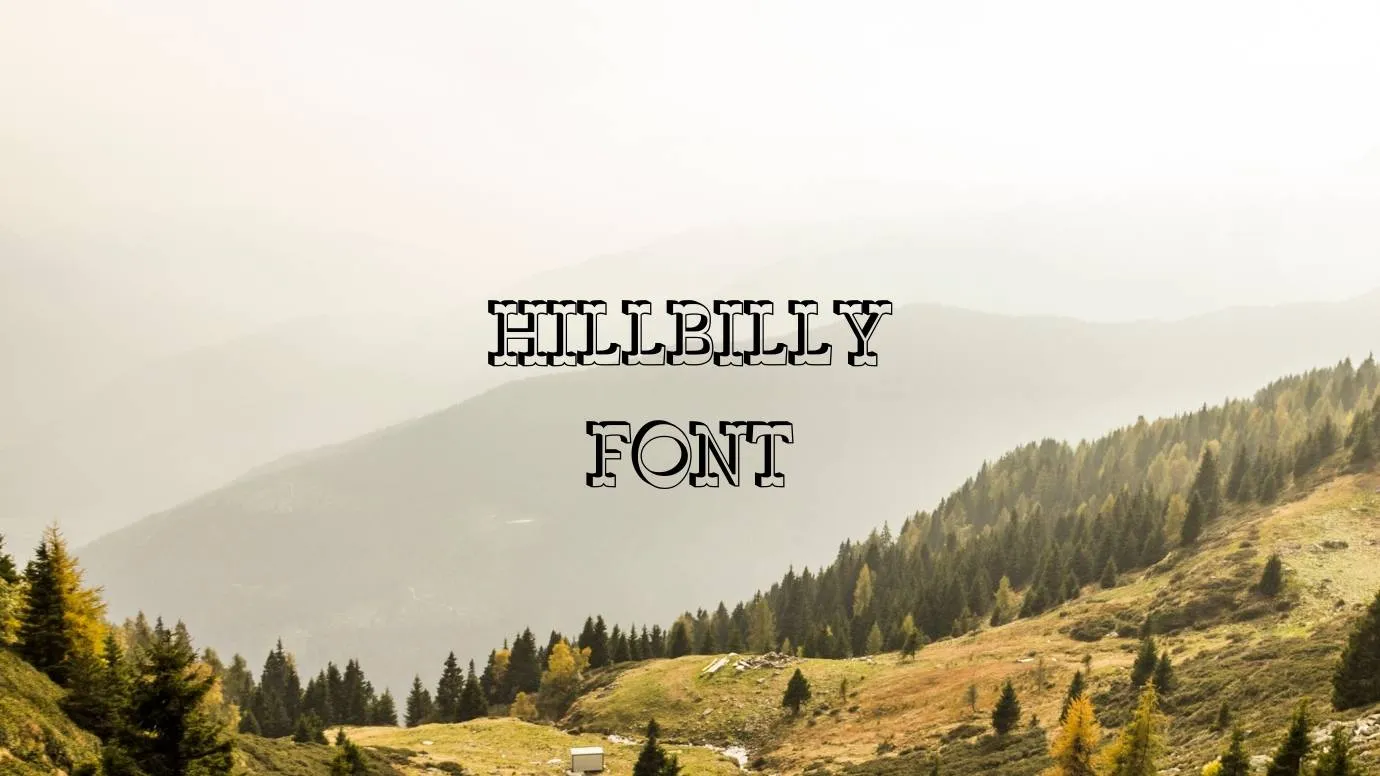
Hillbilly Font Family is a phenomenal display typeface family that comes with regular, italic, bold, and bold-italic weights. It has gorgeous textures that are well suited for pairing.
This aesthetic typeface is similar to the Rustico Bold font consisting of a circle of relatives in four stylish patterns and keen features as well as 270 decorative bold splendid characters including uppercase, lowercase, fashionable numbers, punctuation marks, symbols, and icons.
Hillbilly Font